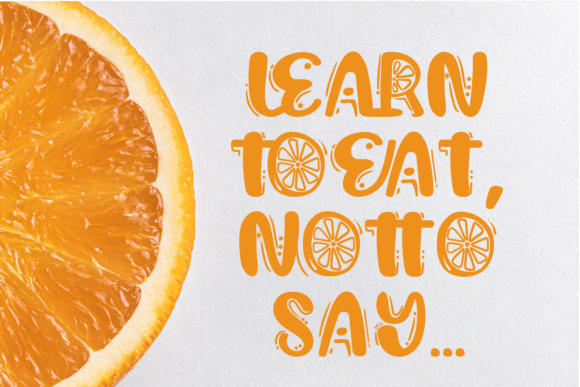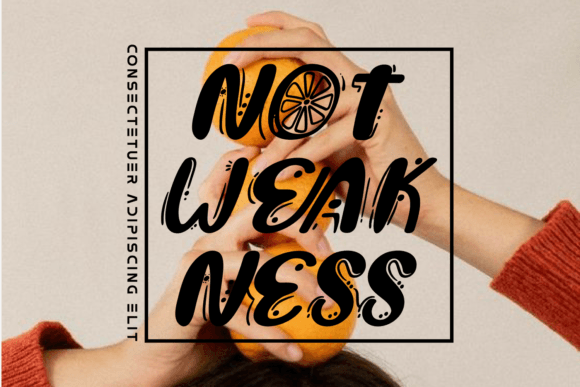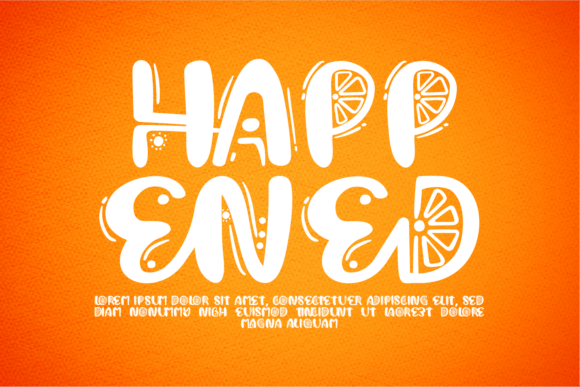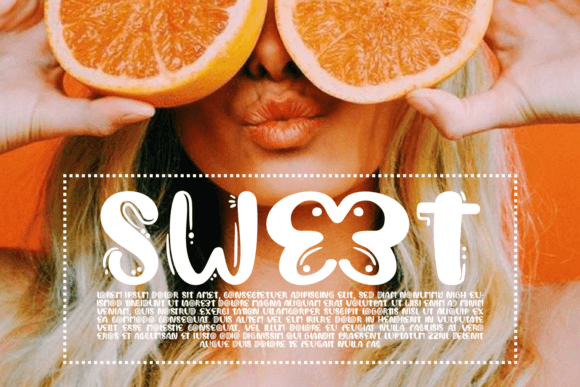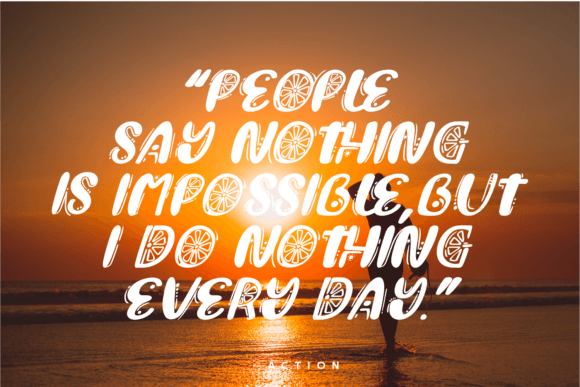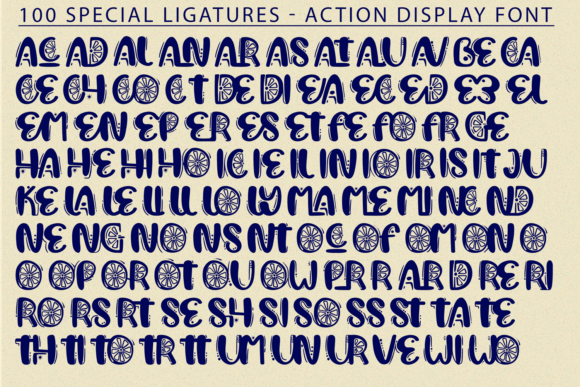
Introducing Action Display Font: The Playful and Fresh Font for Your Designs
Are you looking for a font that can add a touch of playfulness and freshness to your designs? Look no further than Action Display Font, a decorative display font inspired by doodle style and hand-drawn lettering. Designed in a fruit style, this font is perfect for summer and will give your designs a joyful and vibrant feel.
What is Action Display Font?
Action Display Font is a unique and creative font that is designed to add a playful touch to your designs. Its doodle style and hand-drawn lettering give it a personal and informal feel, making it perfect for designs that require a friendly and approachable tone. The font is designed in a fruit style, which gives it a fresh and summery feel that’s perfect for designs that need to evoke a sense of warmth and fun.
Key Features of Action Display Font
- Playful and decorative: Action Display Font is a highly decorative font that is designed to add a playful touch to your designs. Its doodle style and hand-drawn lettering make it perfect for designs that require a fun and informal tone.
- Fruit-inspired design: The font is designed in a fruit style, which gives it a fresh and summery feel. This makes it perfect for designs that need to evoke a sense of warmth and fun.
- Highly versatile: Action Display Font is a highly versatile font that can be used for a wide range of designs, from posters and flyers to social media graphics and website headers.
Design Ideas Using Action Display Font
Action Display Font is a highly versatile font that can be used for a wide range of designs. Here are a few ideas to get you started:
- Summer posters and flyers: Use Action Display Font to create eye-catching posters and flyers for summer events and promotions.
- Social media graphics: Use the font to create fun and engaging social media graphics that will stand out on your followers’ feeds.
- Website headers: Use Action Display Font to create a bold and eye-catching website header that will grab visitors’ attention.
- Crafting and DIY projects: Use the font to add a personal touch to your crafting and DIY projects, such as handmade cards and gift tags.
Action Display Font is a playful and fresh font that is perfect for designers and crafters looking to add a touch of fun and personality to their designs. Its doodle style and hand-drawn lettering give it a unique and informal feel, while its fruit-inspired design makes it perfect for summer designs. With its versatility and ease of use, Action Display Font is a great addition to any designer’s toolkit.